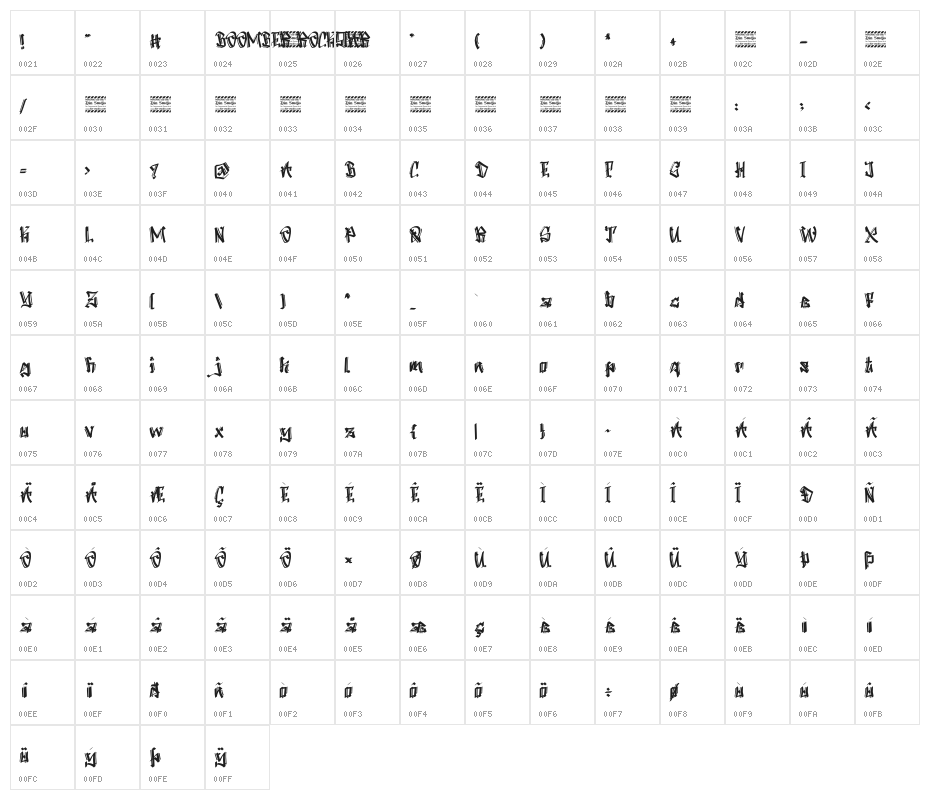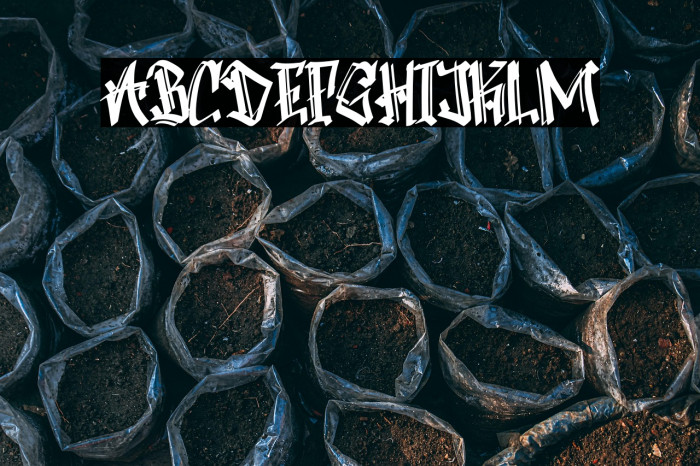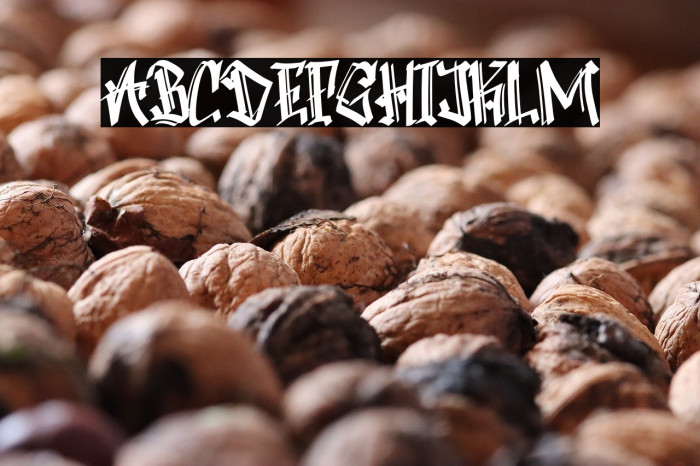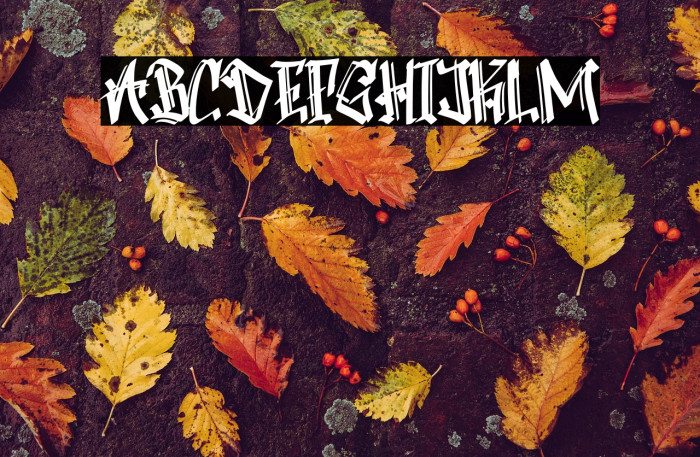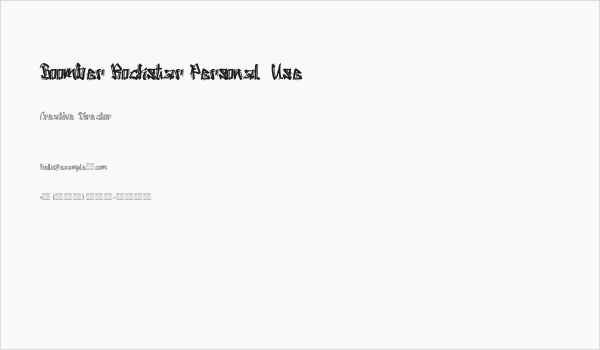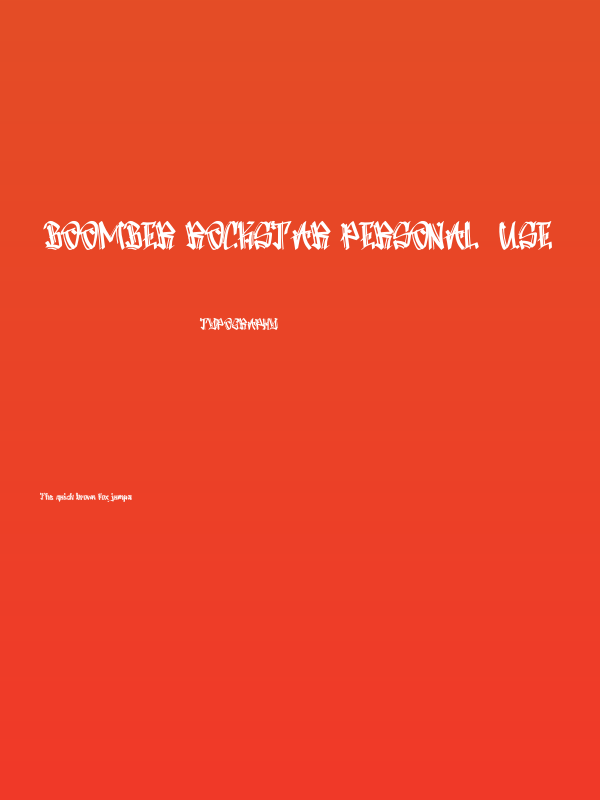
Boomber Rockstar Personal Use Font
Boomber Rockstar Personal Use Description
This font features a bold, edgy design with sharp, angular lines and a graffiti-like appearance. The uppercase letters are particularly striking, with exaggerated serifs and a dynamic, rebellious style. The lowercase letters maintain the same energy, with a slightly more compact form. Numbers and special characters are equally bold, ensuring consistency across all text elements. The overall look is reminiscent of street art, making it ideal for projects that require a bold, urban aesthetic.
| Overall Style | Urban, Edgy, Graffiti |
| Use Case | Logos, Posters, Album Covers |
| Proposed Projects | Ideal for street art designs, music album covers, urban-themed posters, and edgy branding projects. |